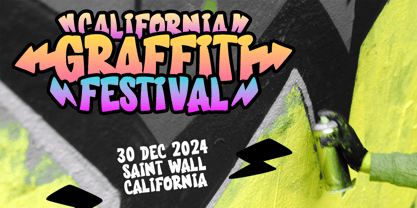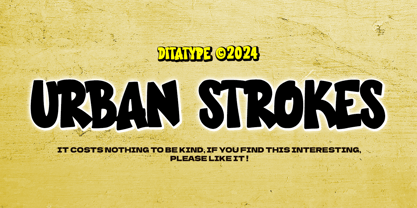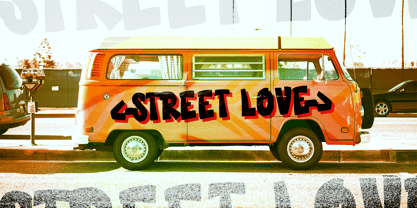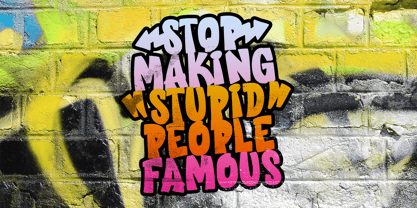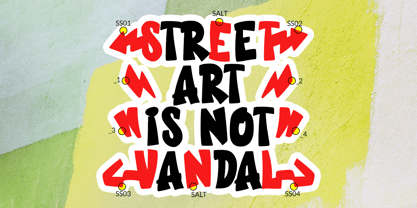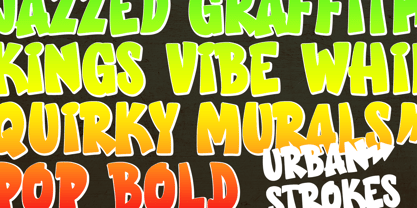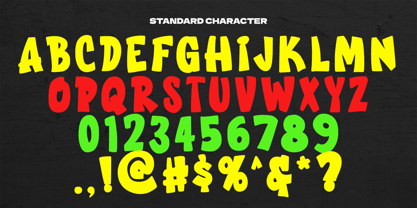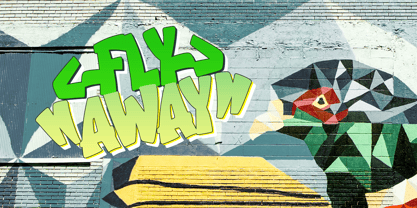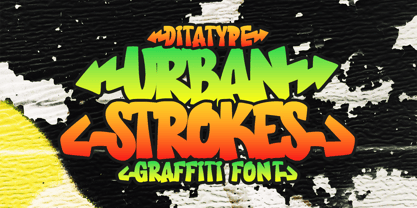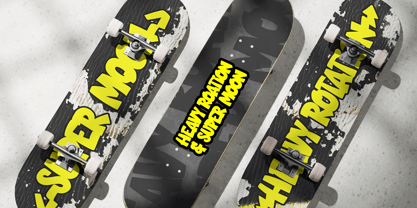
Urban Strokes
Urban Strokes is a bold, all-caps graffiti font designed with an urban flair. Its bubble-shaped letters feature consistent proportions, delivering a balanced, eye-catching style. With its vibrant and playful look, Urban Strokes infuses any design with modern street culture energy and standout appeal. In addition, enjoy the features here.
Features:
• Ligatures
• Multilingual Supports
• PUA Encoded
• Numerals and Punctuations
Urban Strokes fits in logos, posters, branding materials, print media, and many more designs. Find out more ways to use this font by taking a look at the font preview.